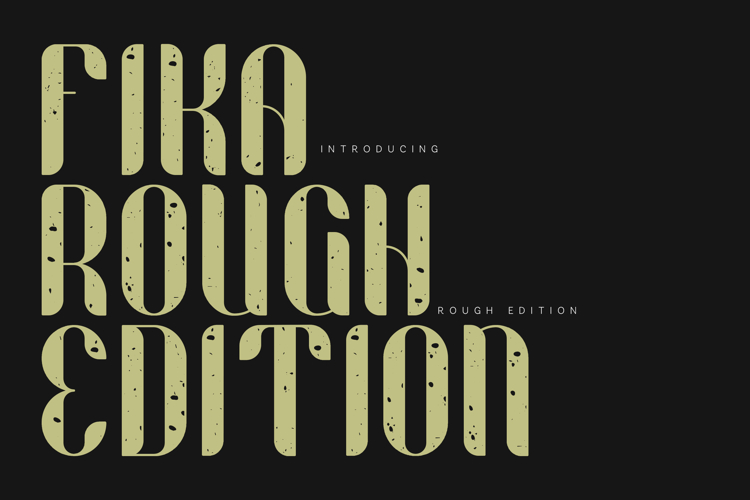
Fika Rough Edition Vintage Scandinavian Display Font
Introducing Fika Rough Edition, a bold vintage display font inspired by Scandinavian design, Nordic café culture, and timeless retro typography.
Featuring tall condensed letterforms, soft rounded terminals, and an authentic distressed texture, Fika Rough Edition delivers a handcrafted look that feels both nostalgic and contemporary. The carefully weathered details add warmth, character, and authenticity, making every word feel naturally printed and beautifully imperfect.
Whether you're designing coffee packaging, restaurant branding, brewery labels, apparel graphics, posters, book covers, product packaging, or social media content, Fika Rough Edition brings a distinctive retro personality that instantly attracts attention.
Its multilingual support and versatile character set make it a valuable tool for designers creating international branding projects with a handcrafted vintage aesthetic.
Features- Uppercase & Lowercase Characters
- Numbers & Punctuation
- Extended Latin Character Set
- Authentic Rough Texture
- Vintage Scandinavian Style
- Condensed Display Design
- Coffee Shops & Cafés
- Restaurant Branding
- Packaging Design
- Craft Products
- Beer & Brewery Labels
- Vintage Logos
- Posters & Flyers
- Apparel Design
- Editorial Projects
- Book Covers
- Social Media Graphics
- Handmade Brands
- Rustic Marketing Materials